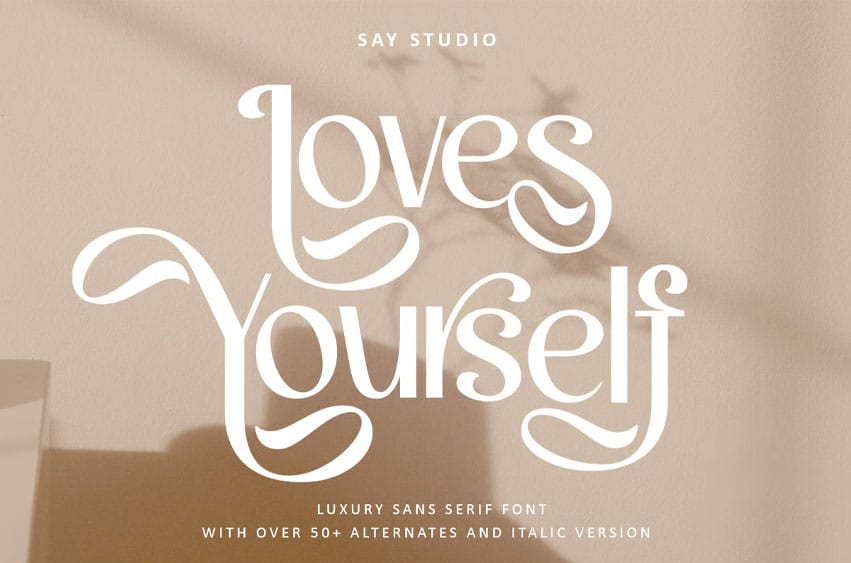
Loves Yourself Font is a sans serif font with a luxury, elegant style, and a unique modern typeface with beautiful character alternates. Loves Yourself is ideal for posters, magazines, and print designs, bringing a touch of sophistication and cool luxury vibes to every project.
- 50+ Alternates